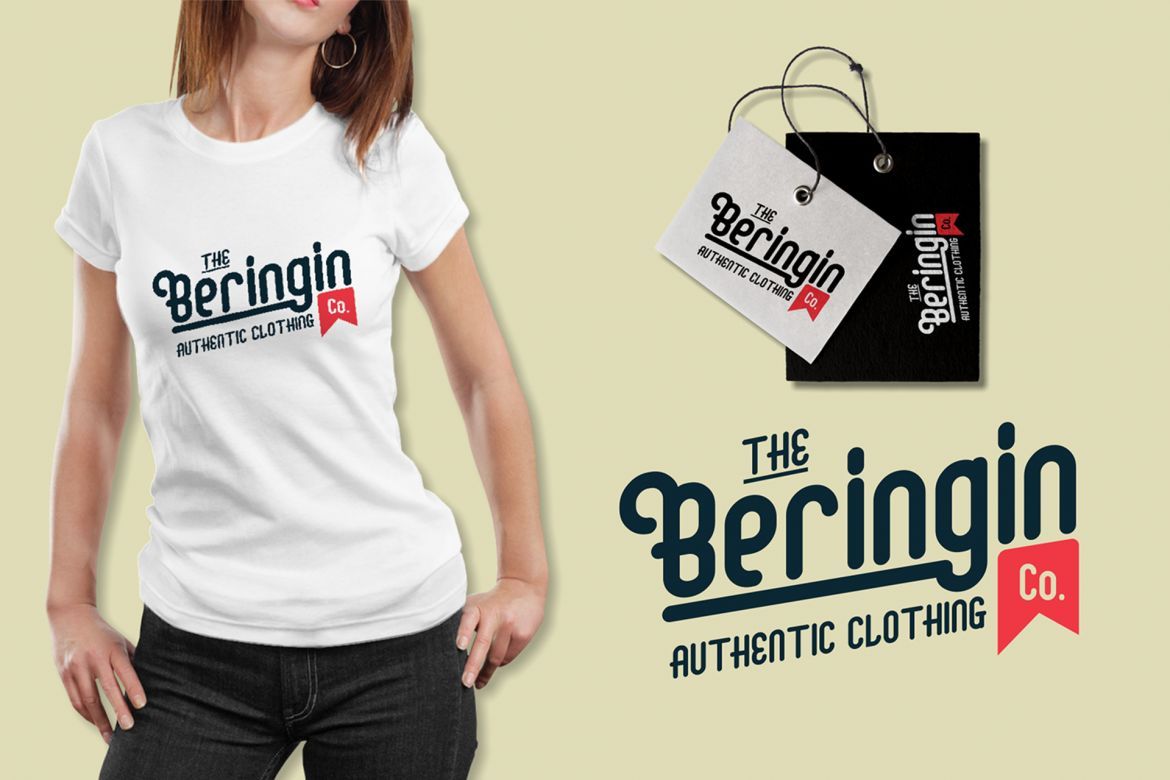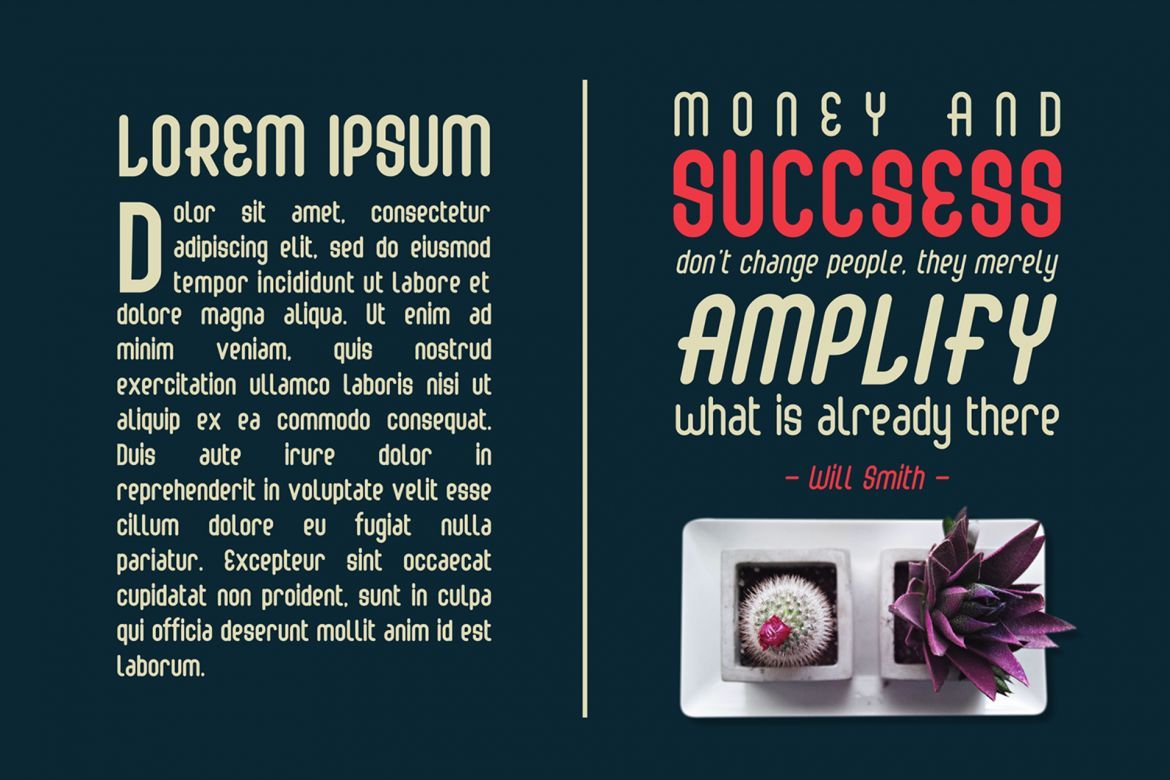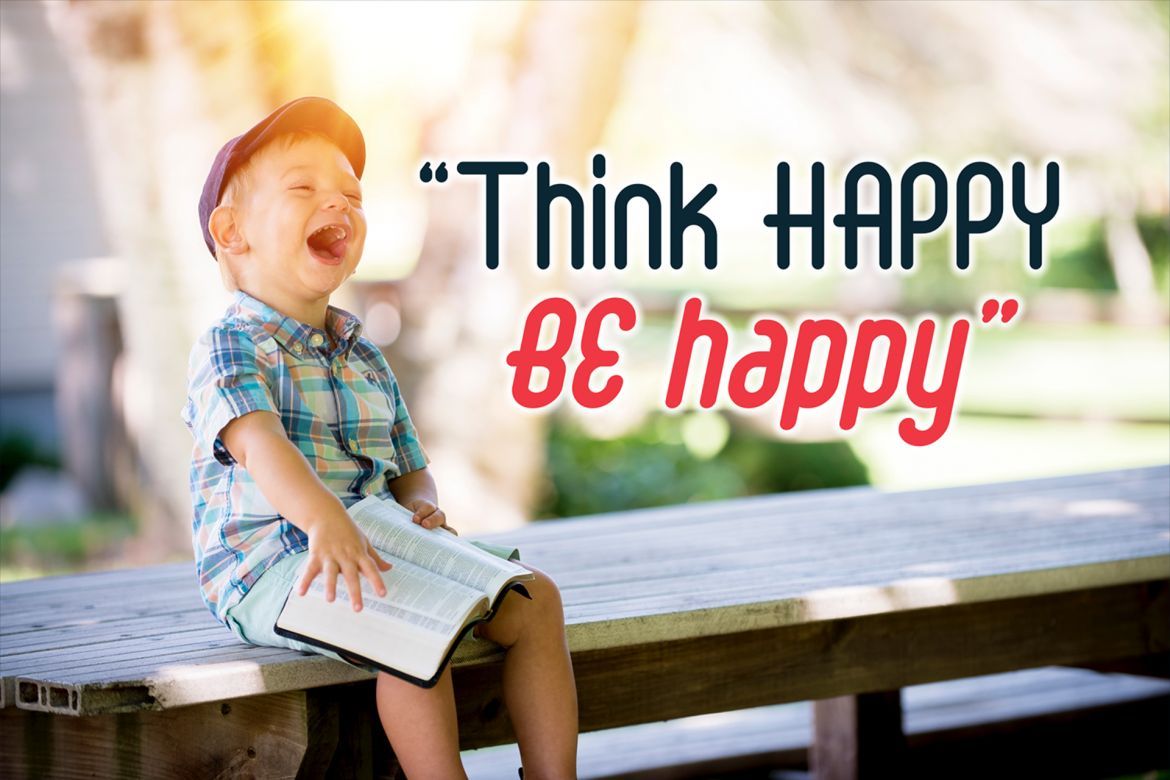
Abingdon Free Font Family
Abingdon is a great display font with a bold, modern charm. It will turn any vintage-themed design project into a stunner!
Abingdon is a family font, in which there are four styles (Regular, Italic, Bold and Bold Italic).
• regular, italic, bold, bold italic & multilingual support